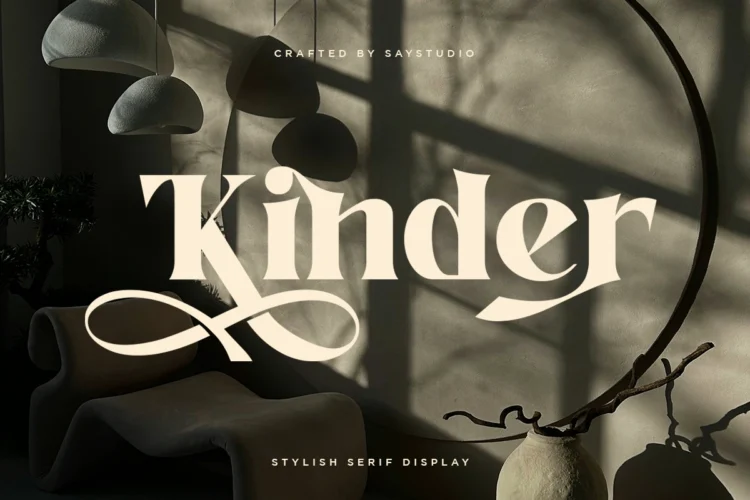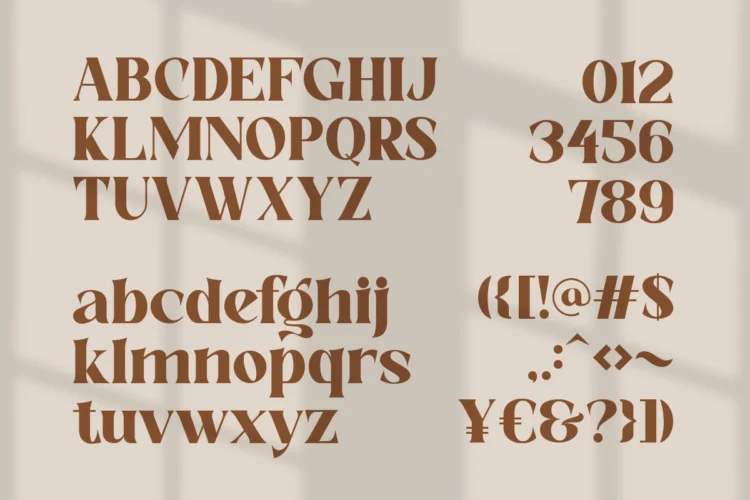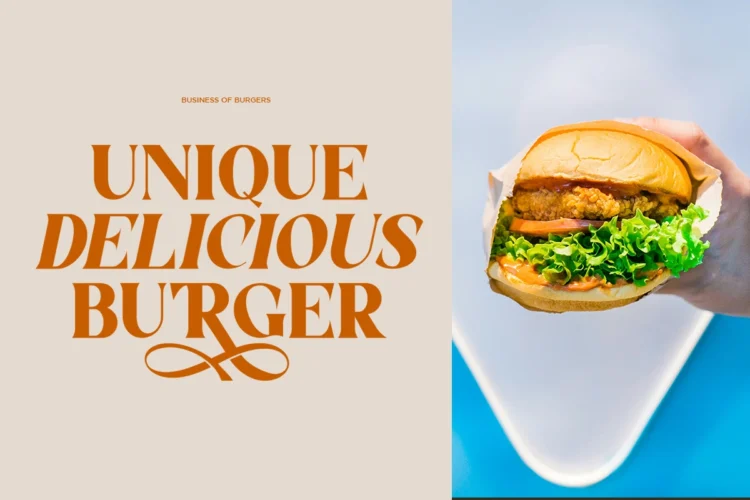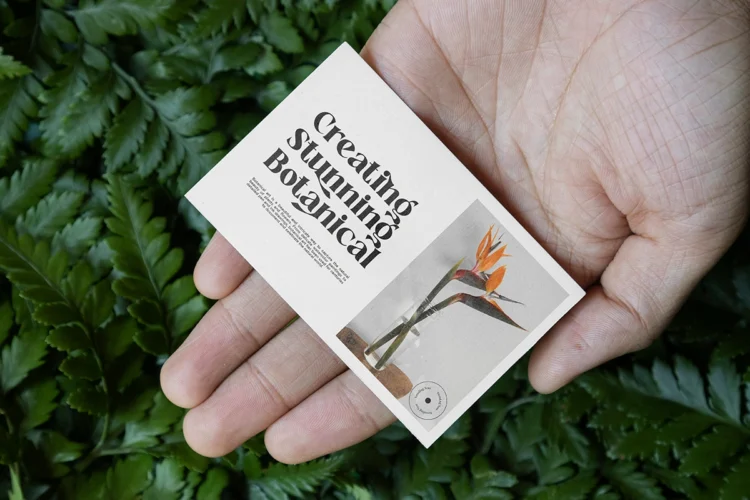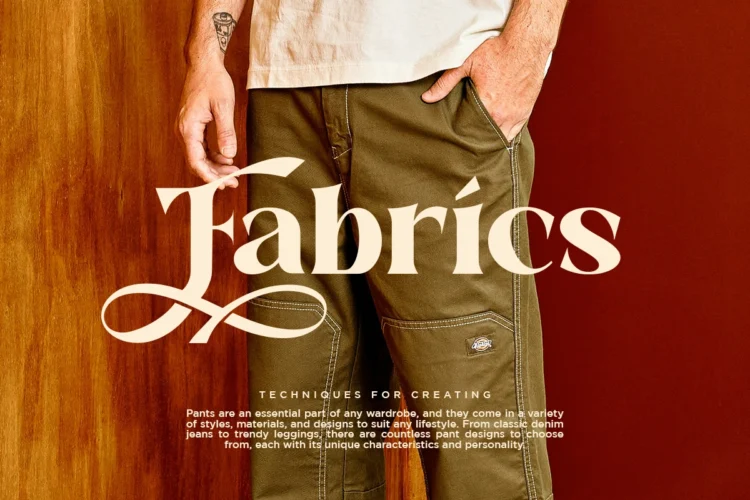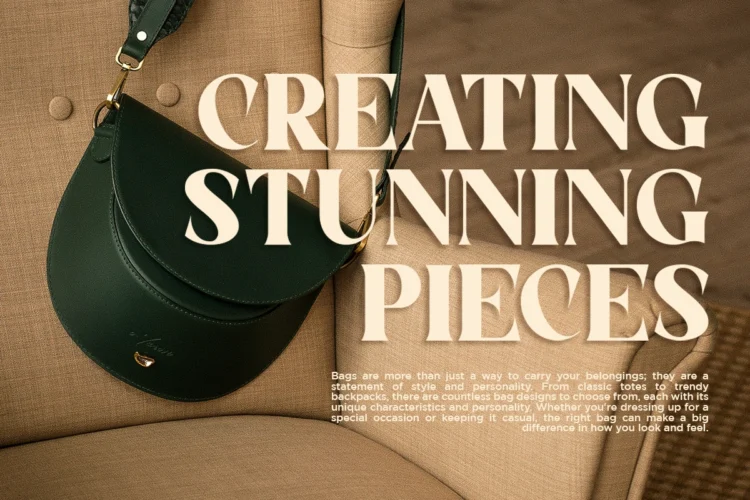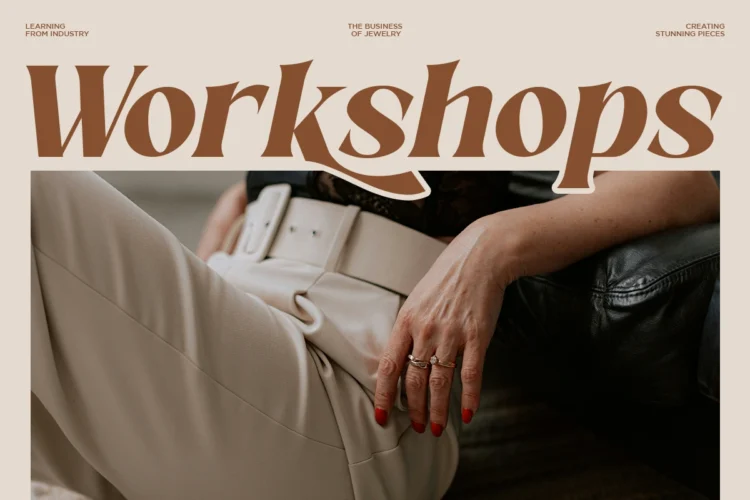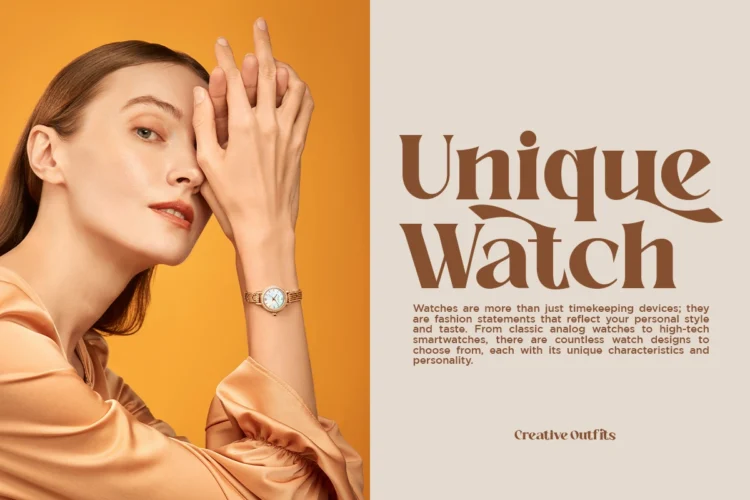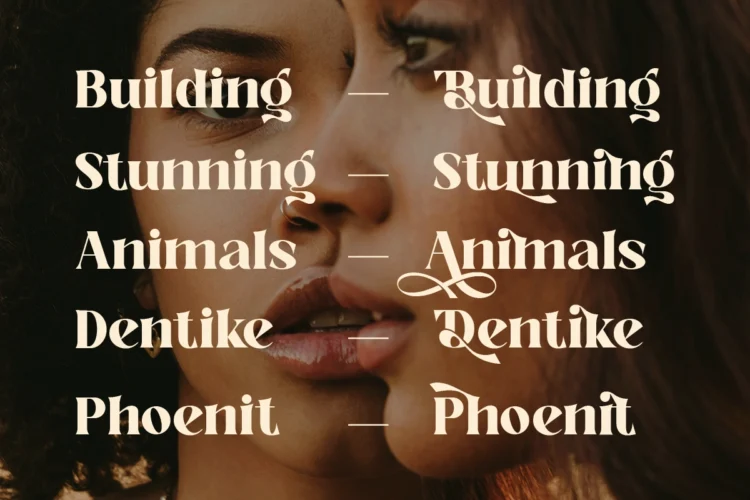
Kinder is a serif font with a modern style that is designed very neatly and boldly, especially for designers and clients who want to have a classic yet trendy design concept, with many alternative lowercase and uppercase letters and 9 ligatures, as an option for those of you who want to add a unique touch to your design. This font is perfect for a sturdy and discreet company logo and is also perfect for magazine layout designs, articles, quotes, and even posters. What's you get? OTF. TTF and WOFF font versions Alternates & Ligatures Numbers & Punctuation Multilingual Support Works on PC & Mac Simple Installations Thanks, Have a wonderful Day Say Studio